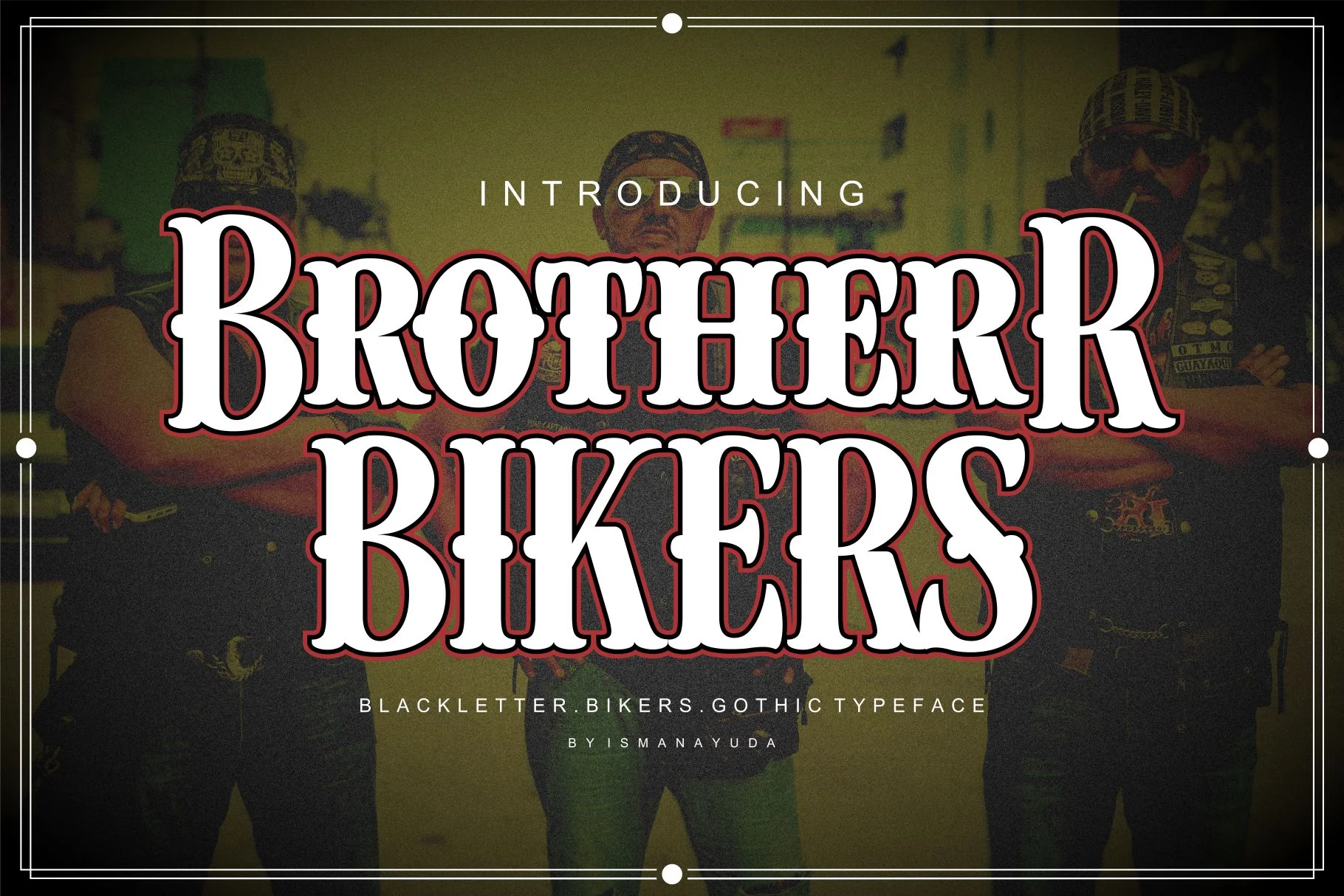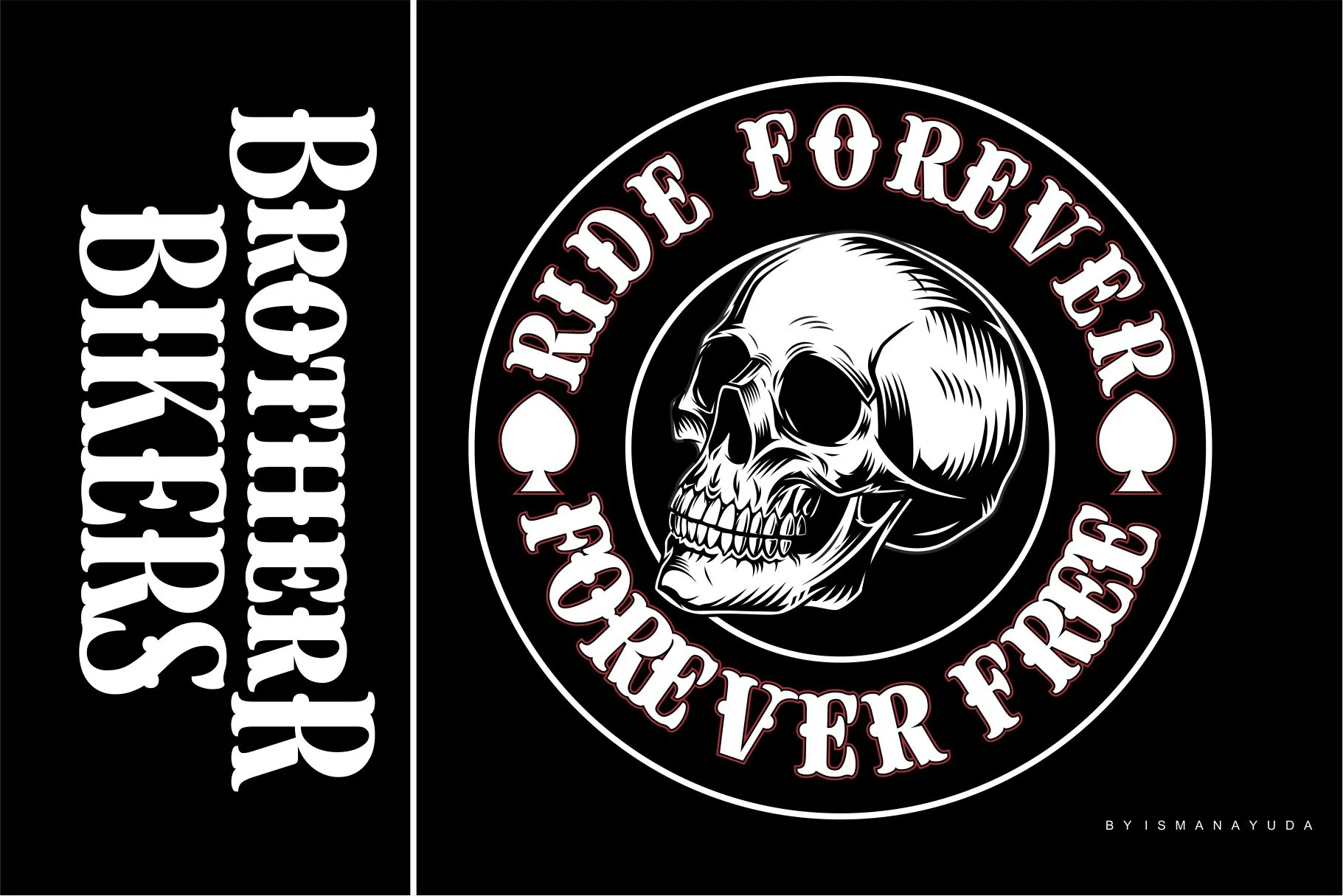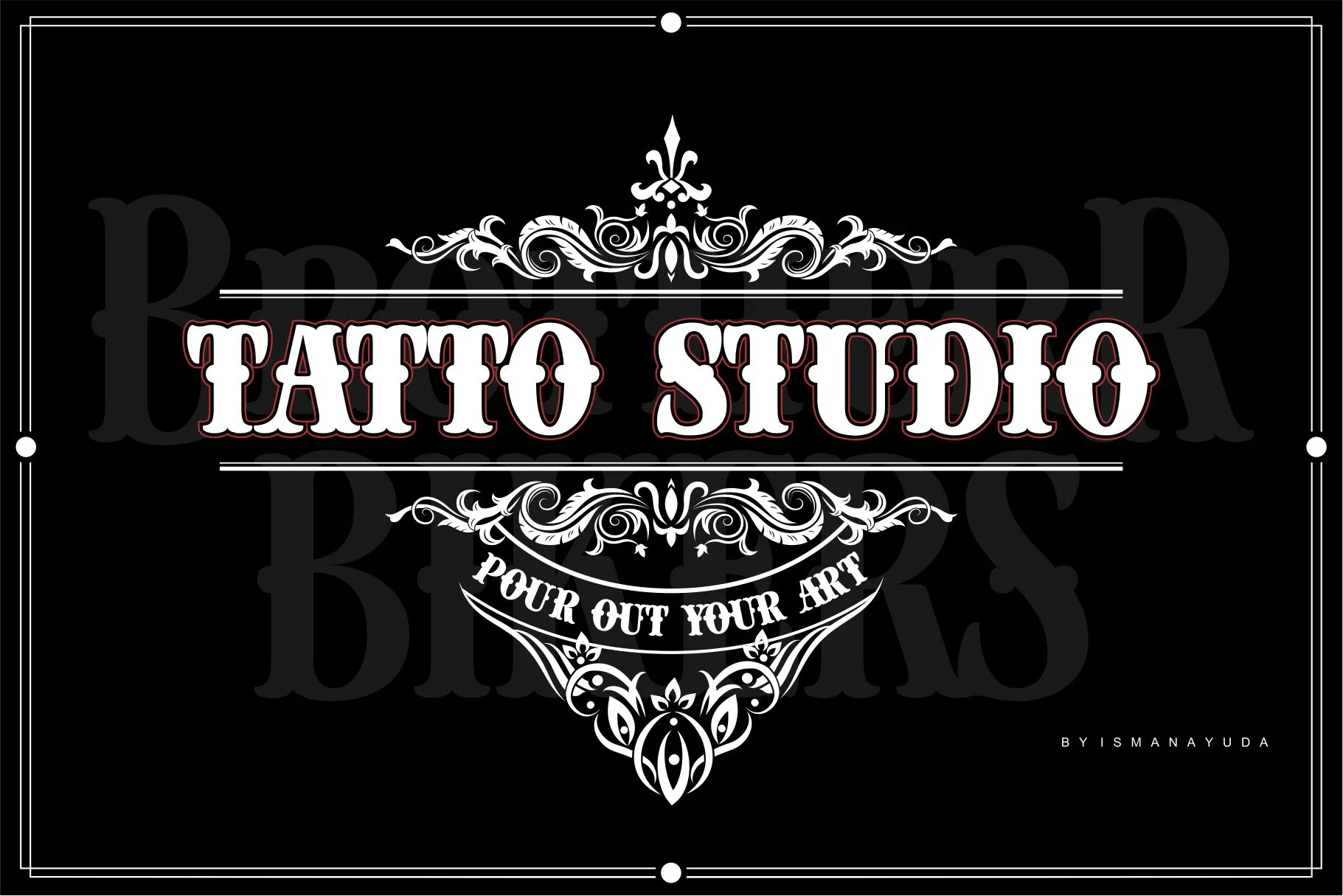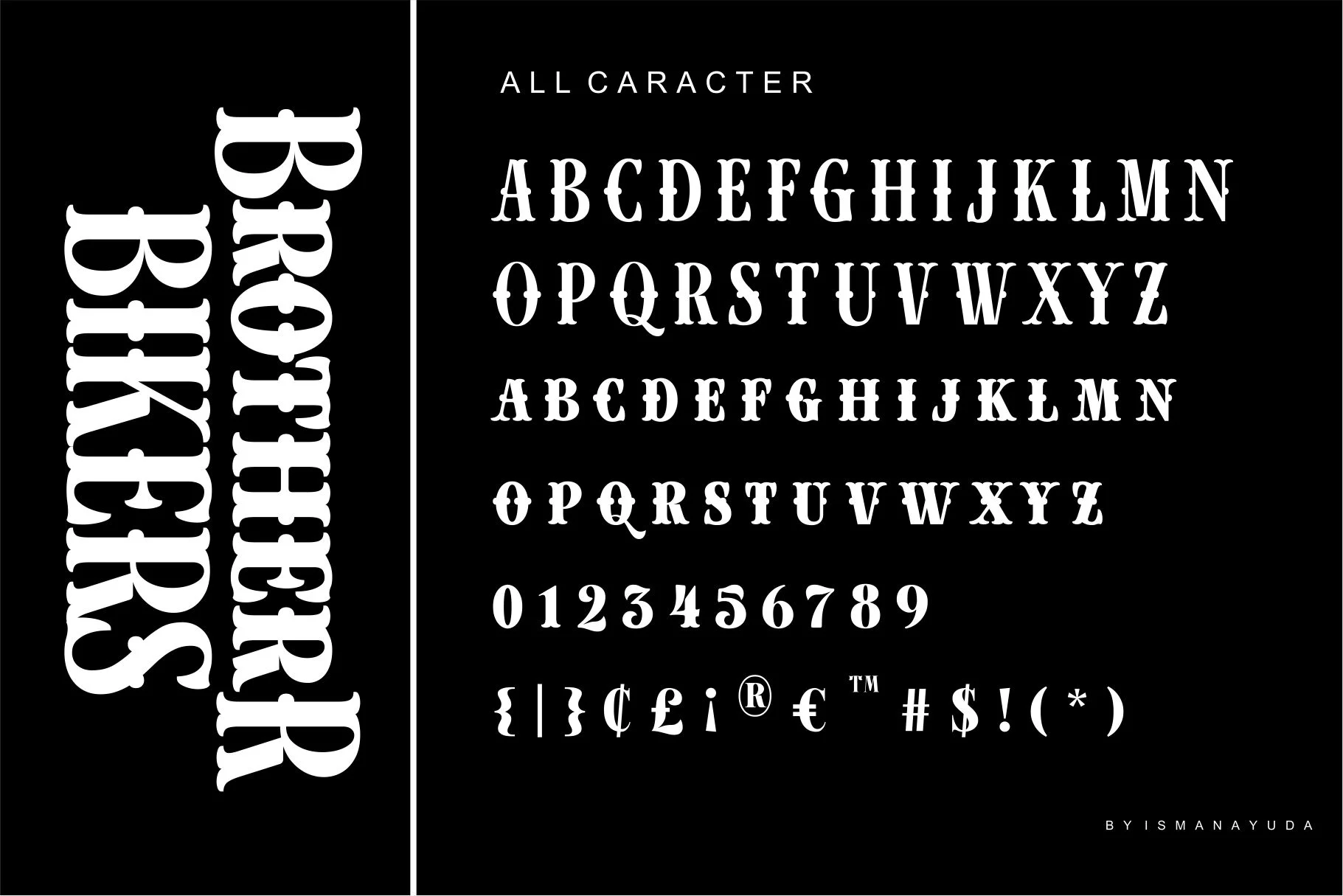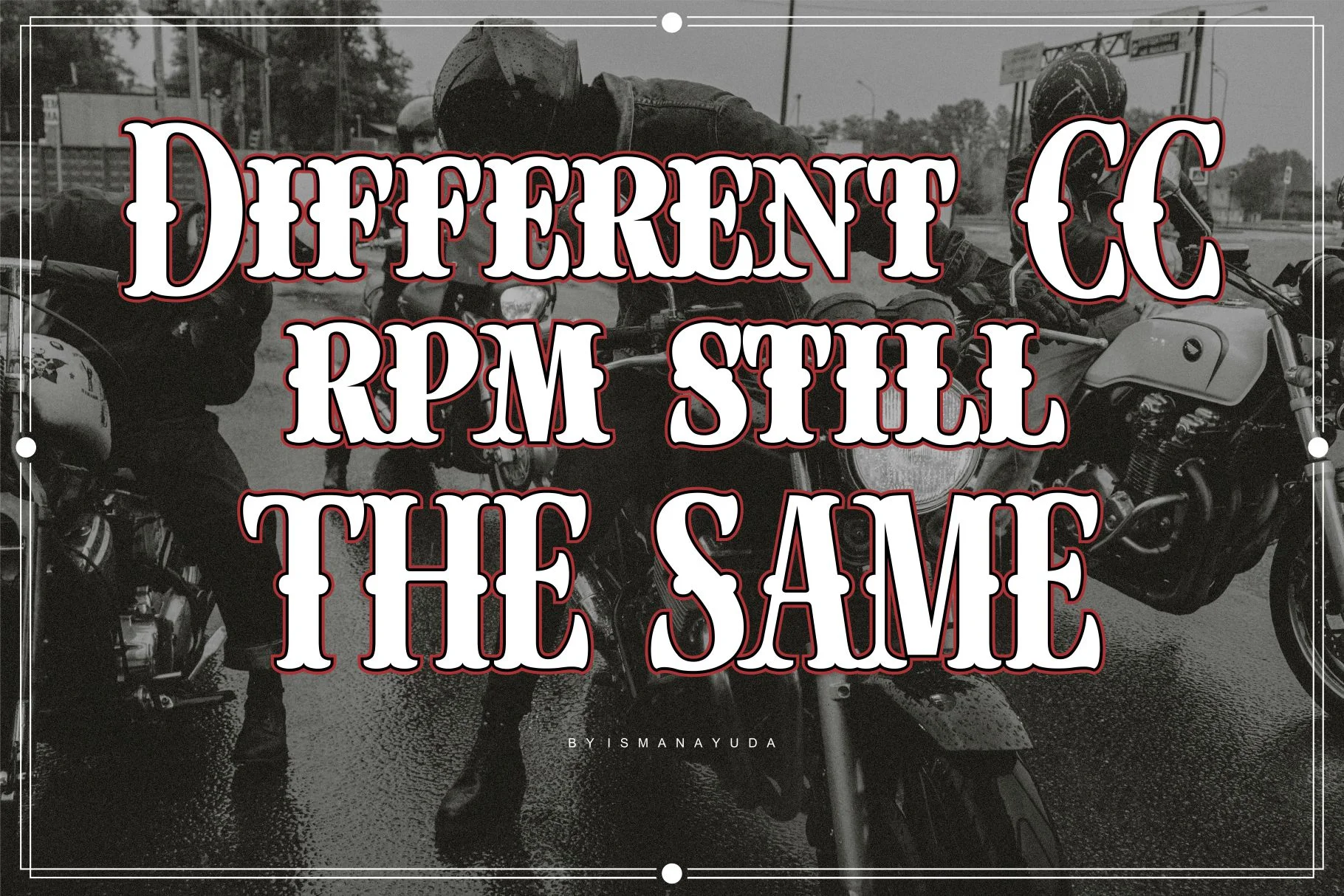
Brother Bikers
Brotherr Bikers is a powerful display font specifically crafted for community naming and high-impact visual needs. It draws heavy inspiration from Blackletter culture, featuring the thick, dramatic strokes and sharp, intricate terminals characteristic of traditional Gothic calligraphy.
This typeface is designed to convey a rugged and authoritative presence, making it a popular choice for motorcycle (biker) clubs, tattoo communities, and specialized businesses like barbershops and coffee shops. Its aggressive yet decorative aesthetic also makes it ideal for band logos in genres like metal, hardcore, or punk, as well as for streetwear apparel and event posters. The font is PUA encoded